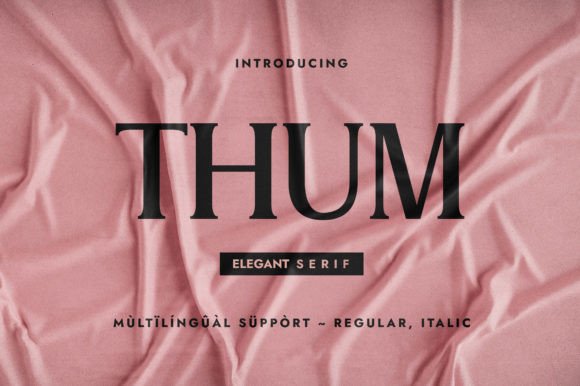
Unleash your creativity with Thum Font, the epitome of modern typography! This captivating serif typeface exudes elegance and sophistication, effortlessly enhancing the visual impact of your designs. Its alluring curves and dynamic letterforms dance harmoniously, creating a symphony of visual delight.
Thum Font is a visionary creation by Minimalistartstudio, renowned for their dedication to crafting typographic masterpieces. They have meticulously designed Thum Font to be a versatile chameleon, adapting seamlessly to an array of design contexts. Whether you're designing captivating posters, alluring packaging, or creating a memorable social media presence, Thum Font is your trusted companion.
Experience the transformative power of Thum Font in your logo designs. Its refined strokes and balanced proportions lend an air of professionalism and sophistication, making your brand stand out amidst a sea of competitors. Thum Font elevates your designs to new heights, imbuing them with a touch of luxury that will captivate your audience.
Unleash the expressive nature of Thum Font in your cosmetics packaging. Its graceful curves and elegant appearance evoke a sense of indulgence, inviting customers to indulge in the allure of your products. Thum Font whispers promises of beauty and self-care, making your packaging an irresistible temptation.
In the realm of website content, Thum Font reigns supreme as the ultimate choice for enhancing readability and engagement. Its crisp and legible characters guide readers effortlessly through your text, ensuring your ideas and stories flow seamlessly. Thum Font transforms your website into a visual feast, captivating visitors and leaving a lasting impression.
Embrace the endless possibilities of Thum Font today and witness the transformative power it brings to your designs. Its versatility and timeless appeal will empower you to create captivating visuals that connect with your audience on a profound level. Experience the Thum Font difference and elevate your designs to new heights of elegance and sophistication!